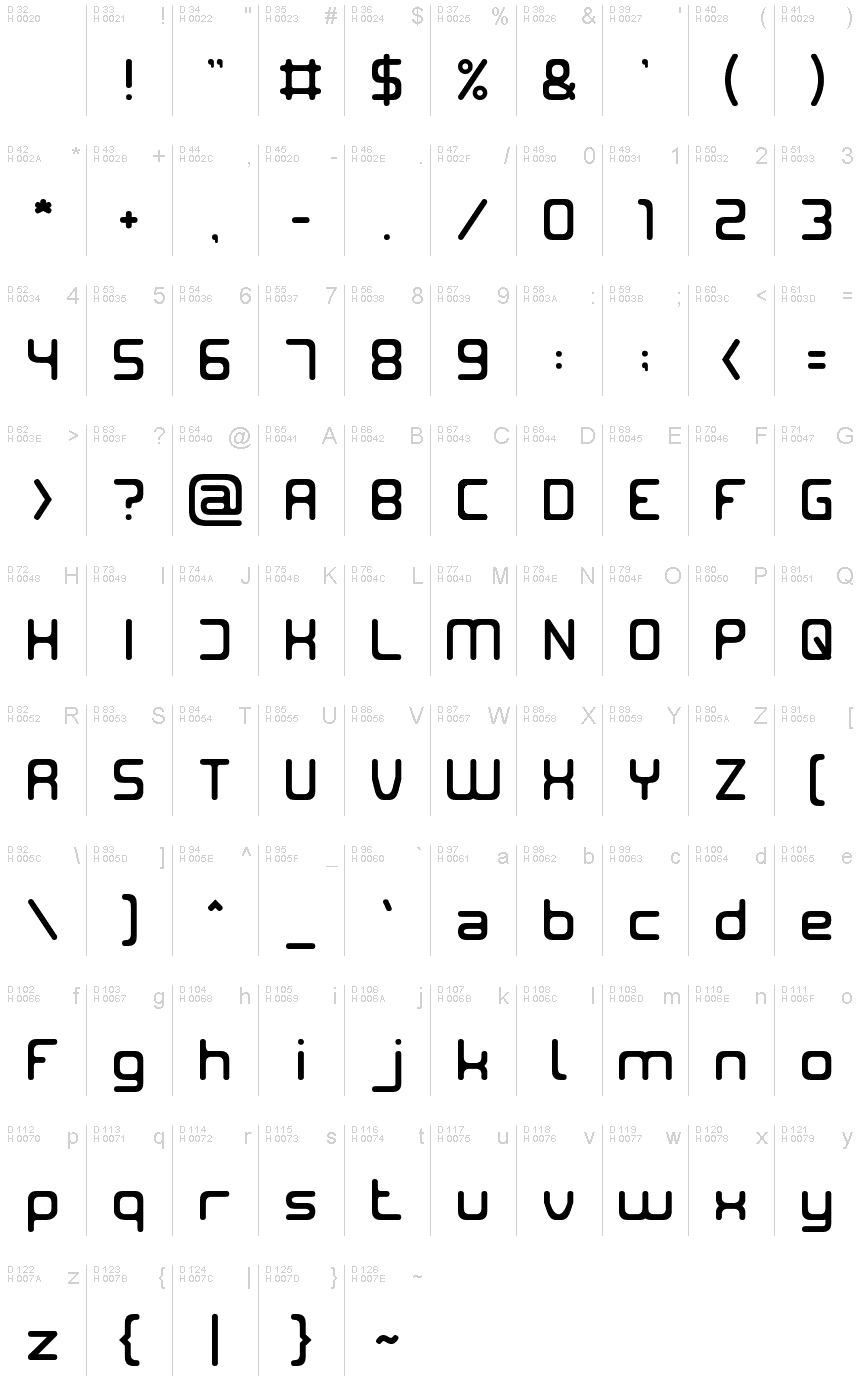
SNEAKERS
Sneakers, designed by weknow, is a modern and cool display font with a techno style. Its semi-light weight adds a touch of sophistication to any project.
Whether you're designing a futuristic website, creating eye-catching posters, or crafting edgy album covers, Sneakers is the perfect choice. Its bold yet casual typography lends itself well to streetwear brands, urban-themed events, and even cutting-edge tech companies. With its versatility and trendy appeal, Sneakers will make your designs stand out from the crowd and leave a lasting impression on your audience.